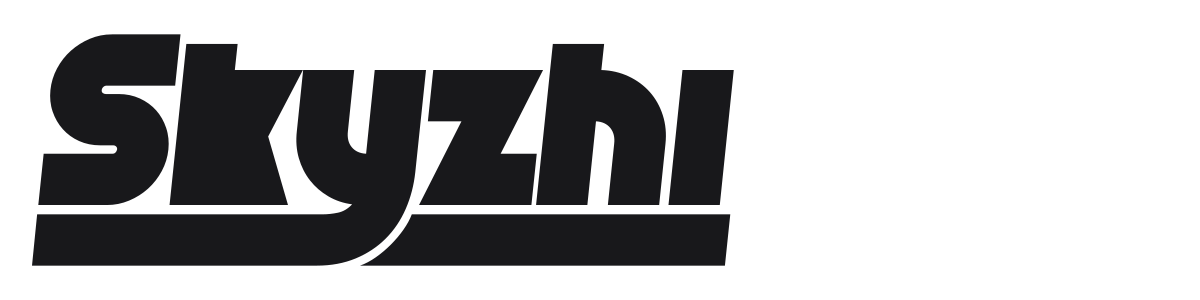
Skyzhi
Skyzhi is a bold, condensed display face from Måns Grebäck with a forward-leaning italic stance and heavy strokes that give it real urgency. The letterforms feel futuristic and tightly packed, built to dominate headlines, posters, and title treatments where you need something that reads as both modern and forceful. Grebäck, known for his prolific output across script and display styles, keeps this one sharp and unapologetic.